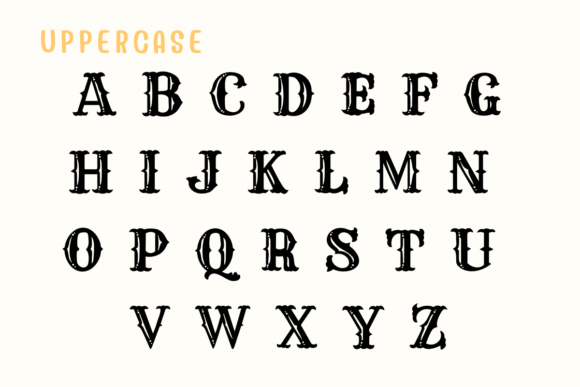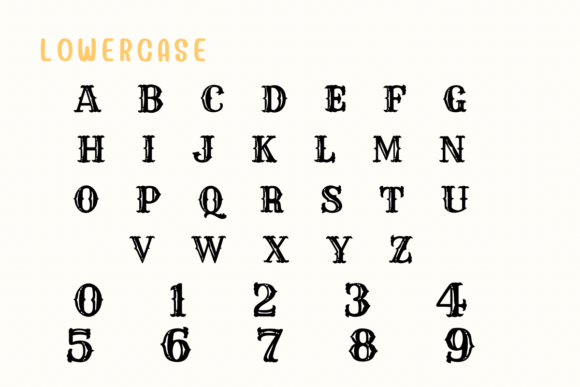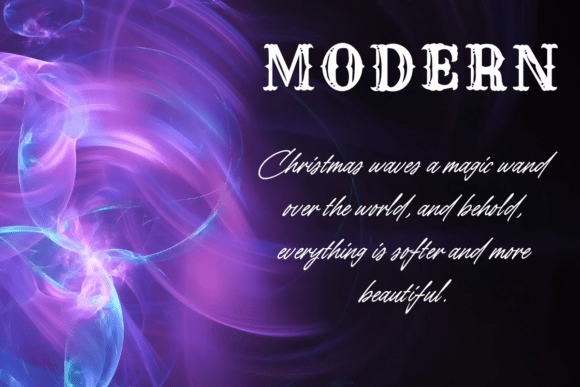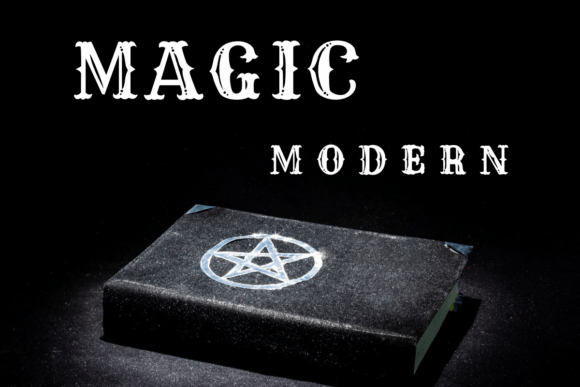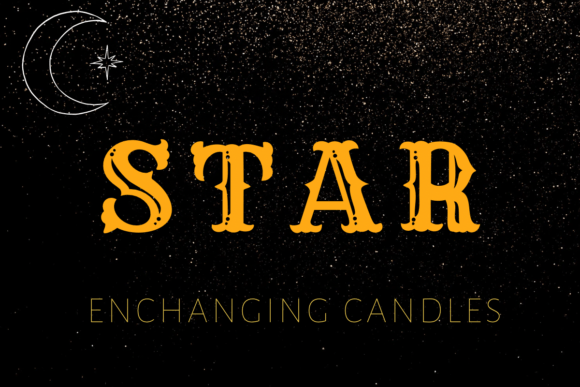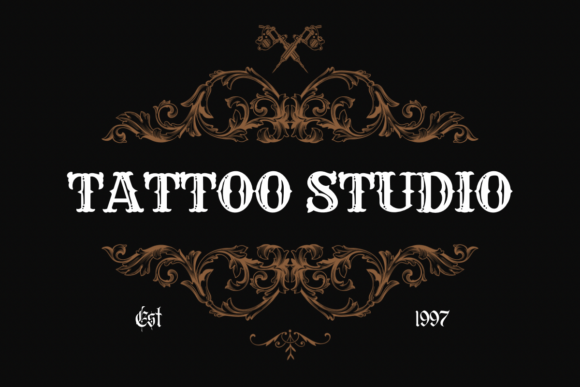
Introduction to Cute Modern Font
Cute Modern is a Decorative font.
You can use it for taking notes, writing a diary, or making greeting cards However, you can still use it for other designs, such as banners, content, mugs, cards, shirts, stationery, social media posts, and more.
Key Features of Cute Modern Font
Cute Modern Font offers exceptional quality and versatility, making it a valuable addition to your design toolkit. Whether you’re creating for personal projects or commercial use, Cute Modern Font delivers professional results.